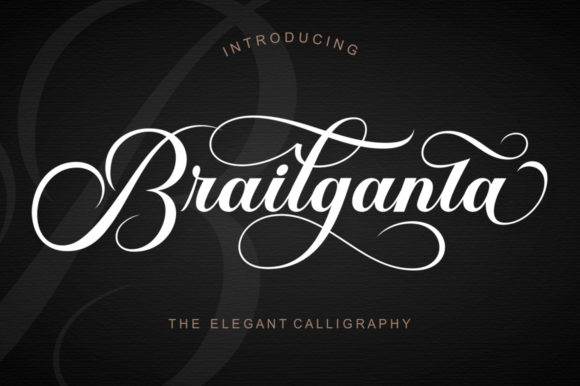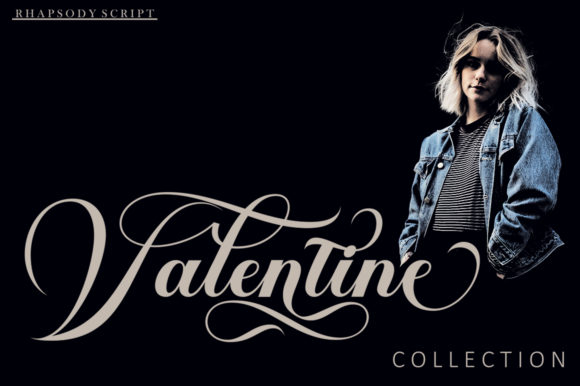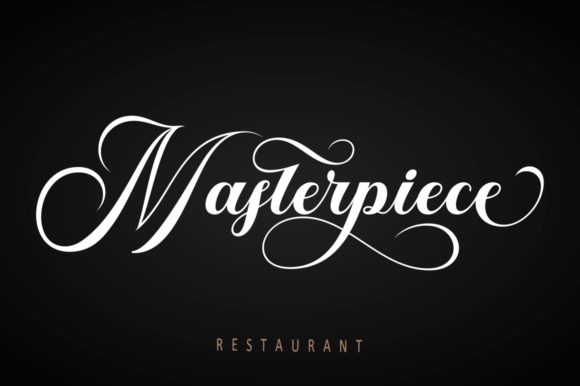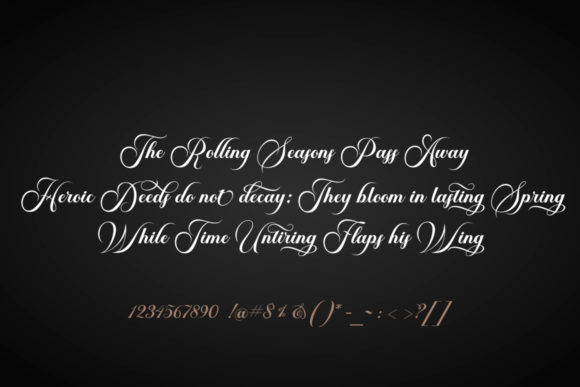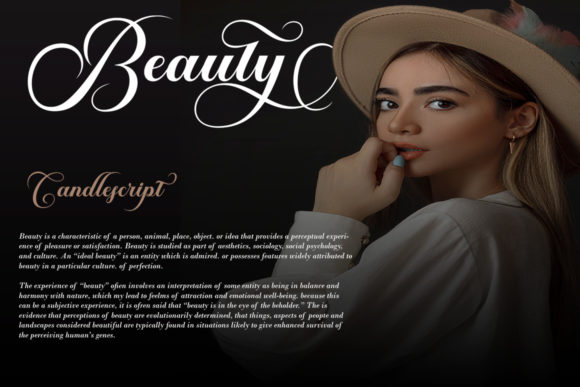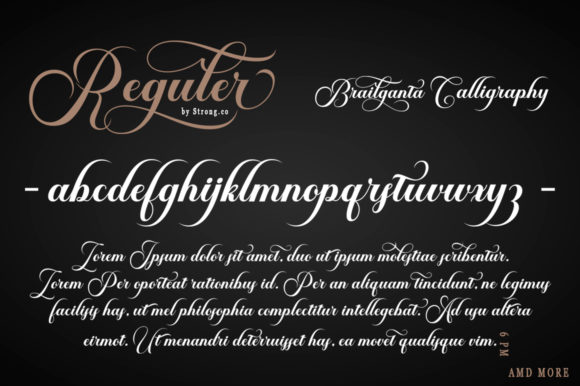
Brailganta Script Font
About Brailganta Script Font
Brailganta Script is a stylish and delicate script font. It is PUA encoded which means you can access all of the glyphs and swashes with ease! Add it confidently to your projects, and you will love the results.